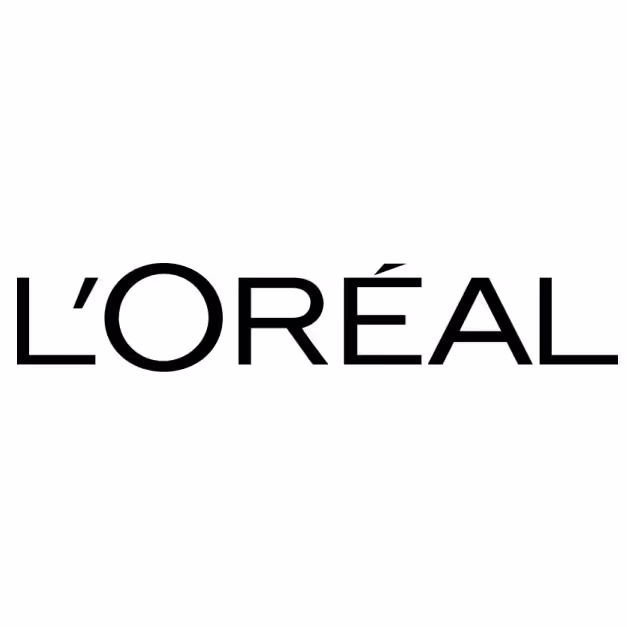
L’Oréal Paris Logo
L’Oréal is a French cosmetics company founded in 1909. It is the world’s largest cosmetics company, specializing in cosmetics such as hair color, skin care, sun protection, makeup, perfumes, and hair care products. The L’Oréal logo uses Trade Gothic LT Std as its primary typeface. The L’Oréal logo font is Trade Gothic LT Std, a clean and modern sans serif typeface known for its strong, condensed letterforms and excellent readability. This L’Oréal logo font gives the brand a professional and contemporary look while maintaining a simple and recognizable global identity.
Trade Gothic LT Std
Trade Gothic was designed by Jackson Burke and published by Adobe. Trade Gothic contains 14 styles and family package options.